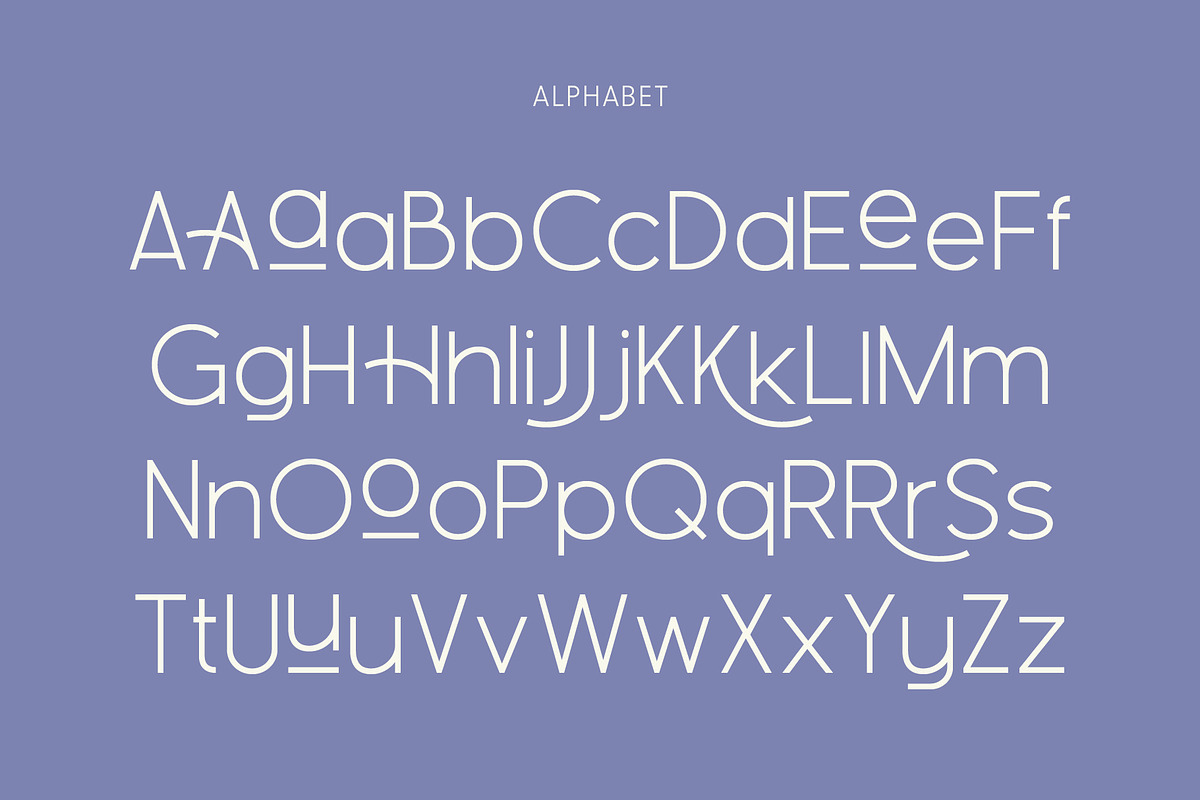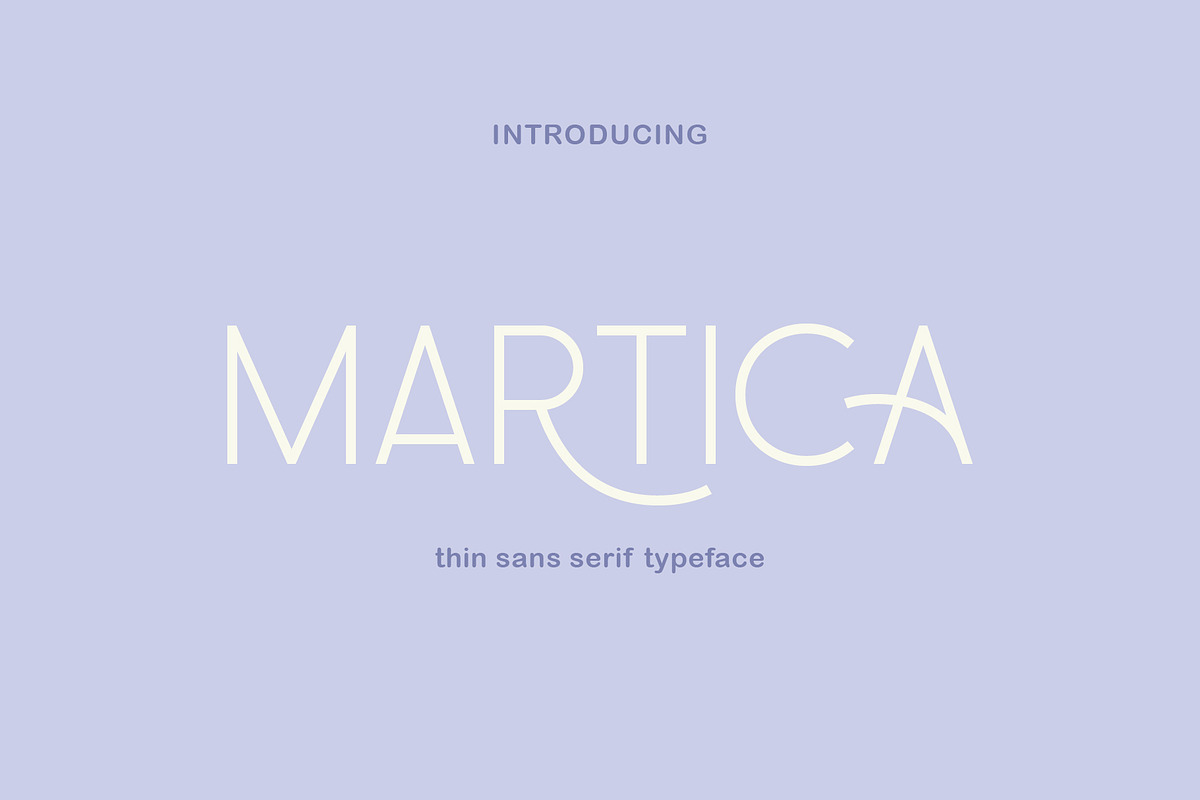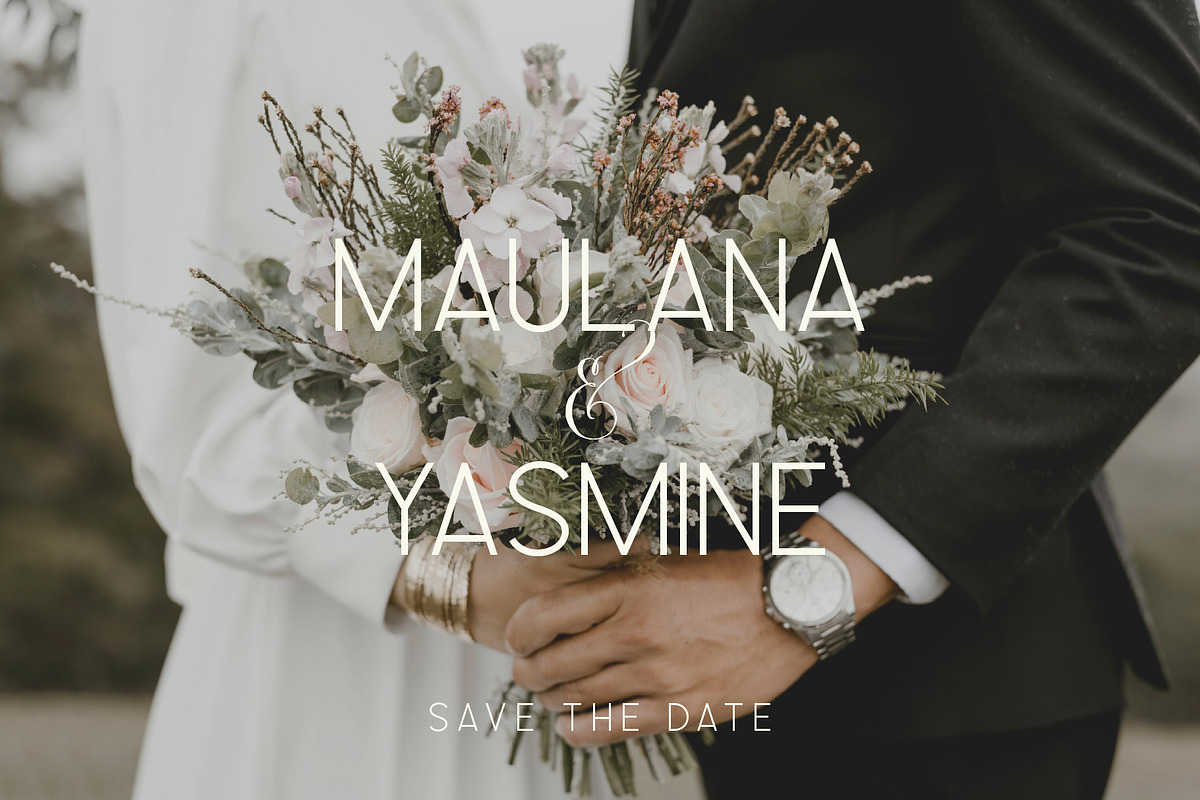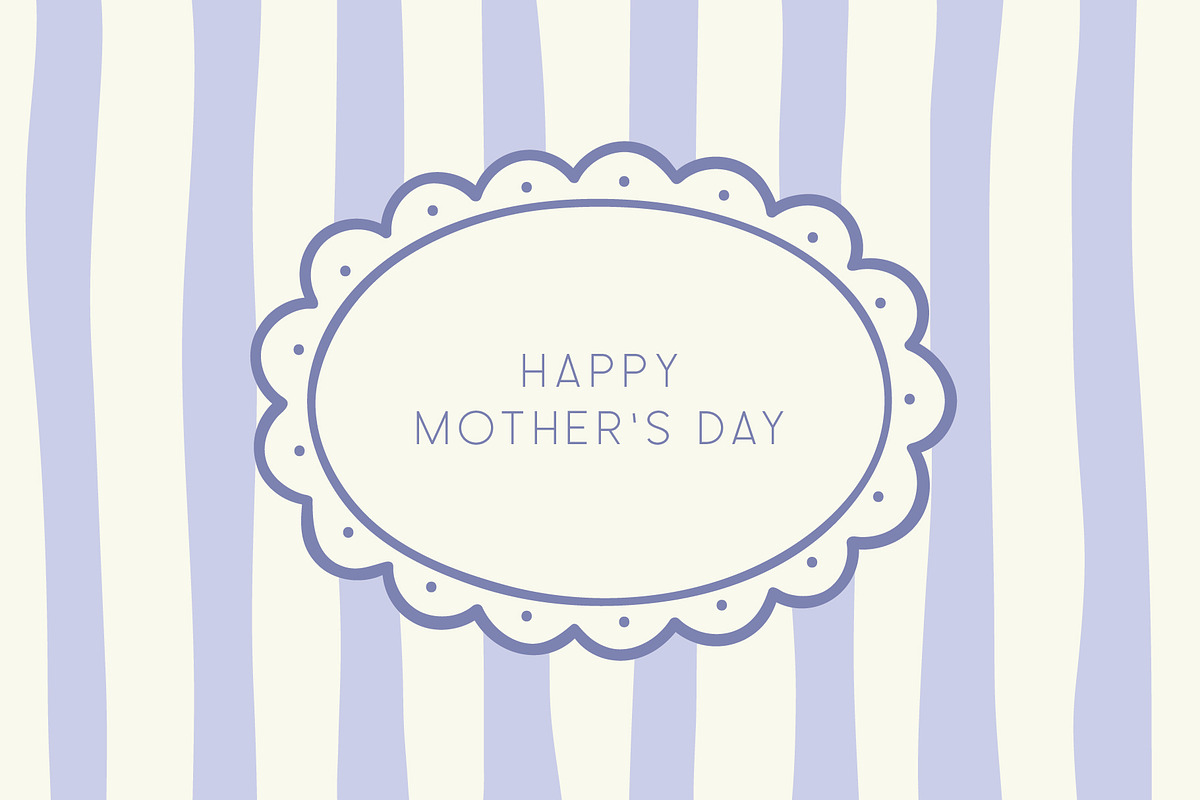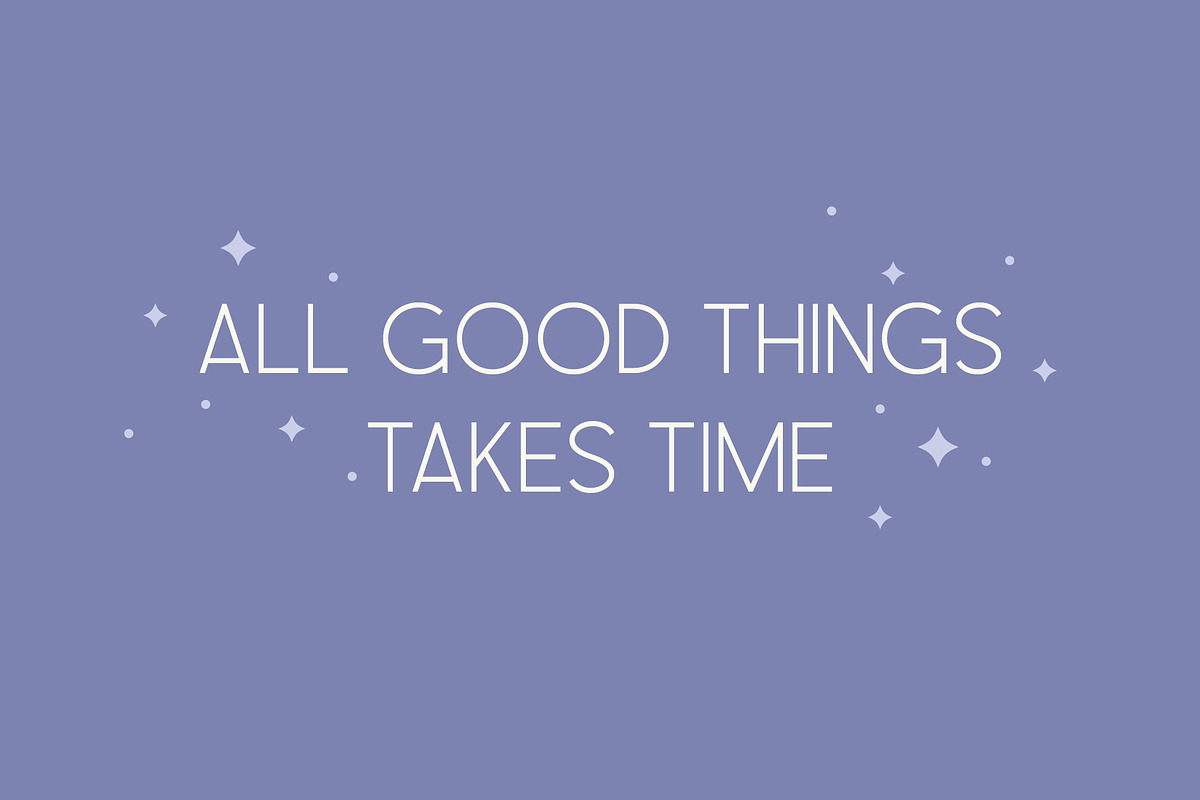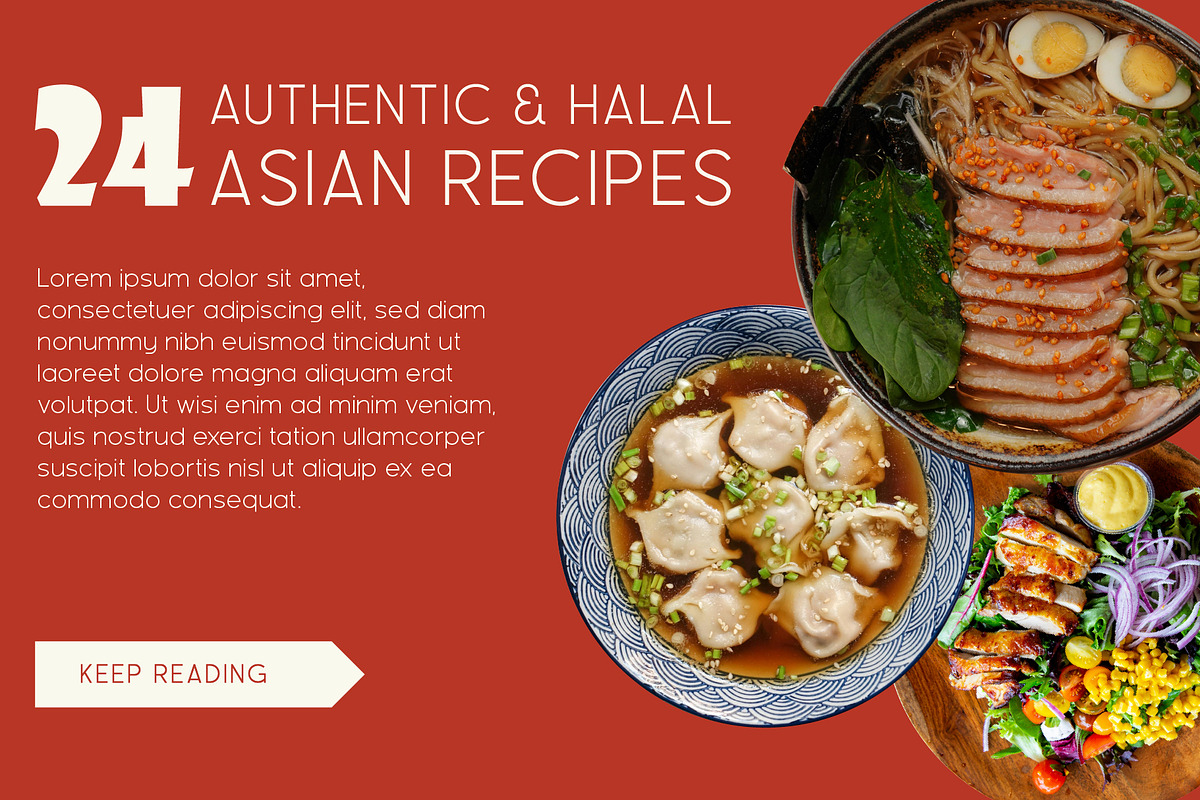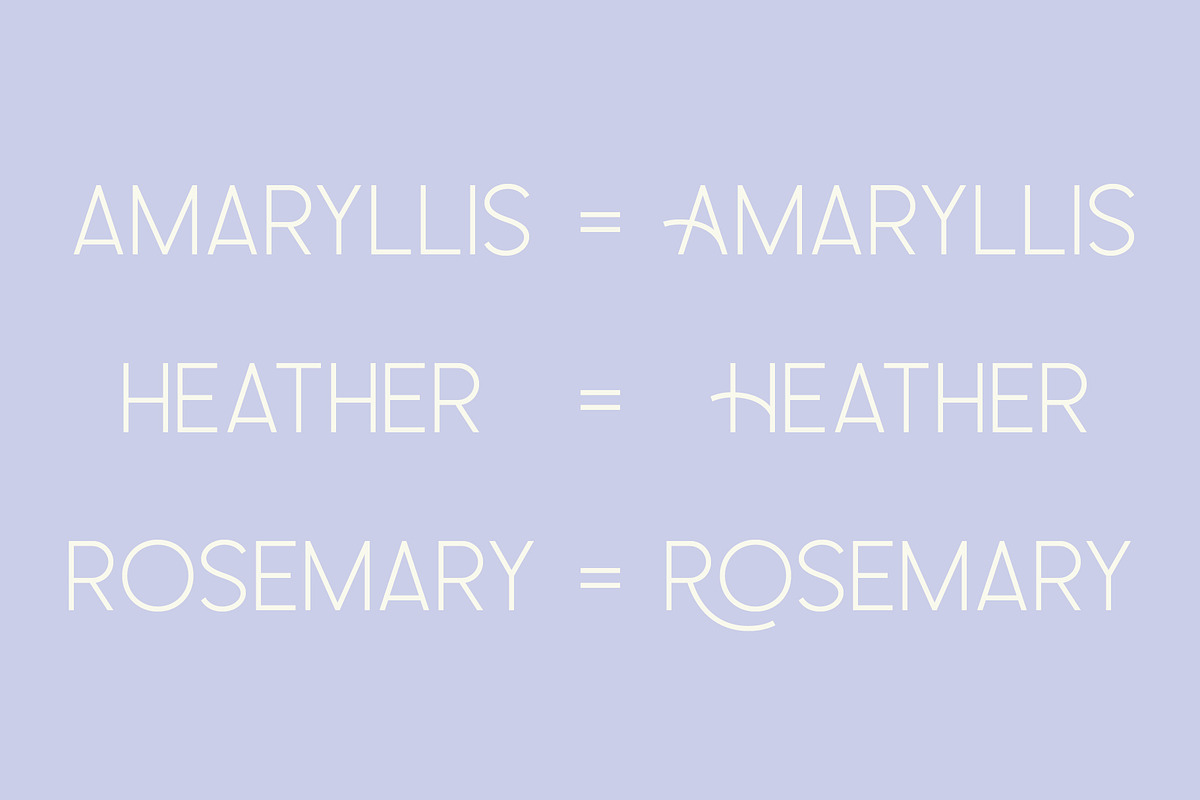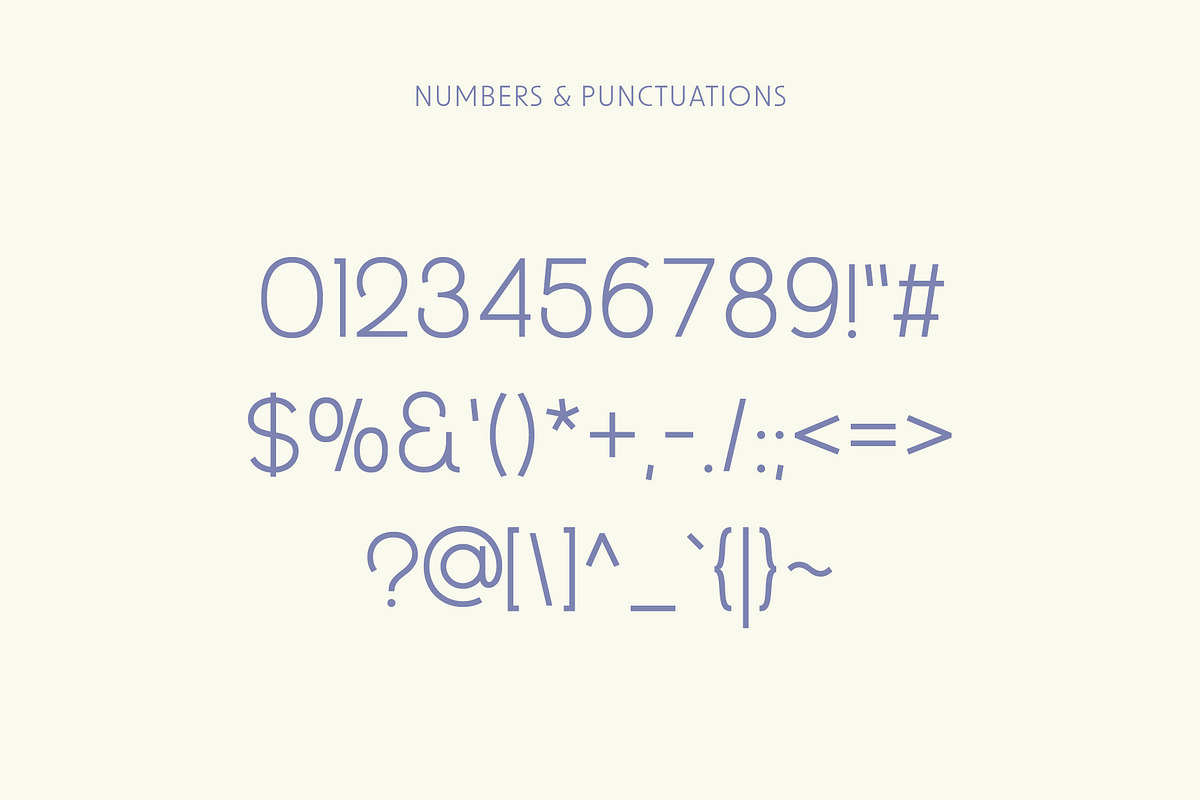
Martica - Thin Sans Serif Font
Martica is a sleek and modern display font with a thin, elegant style. Its clean lines and refined shapes make it perfect for minimalist designs. Use it for logos, product packaging, fashion branding, or editorial titles that need a soft yet confident look.
This font includes uppercase and lowercase letters, numbers, and a set of stylish alternates to give your text extra flair. Every detail is crafted to create a smooth and balanced feel in your designs.